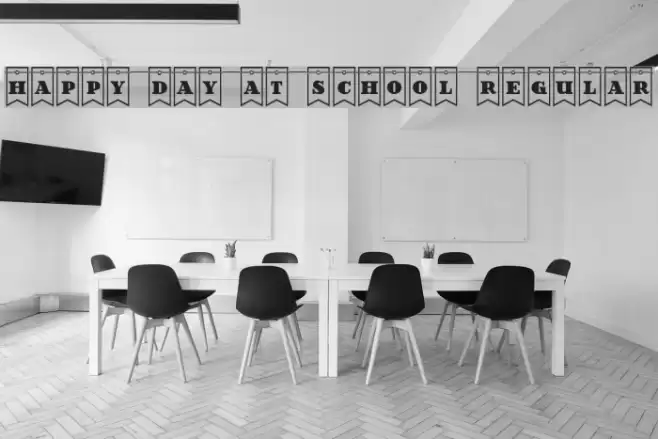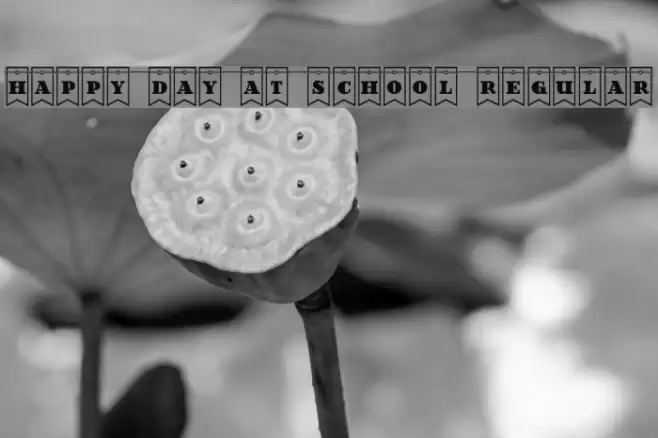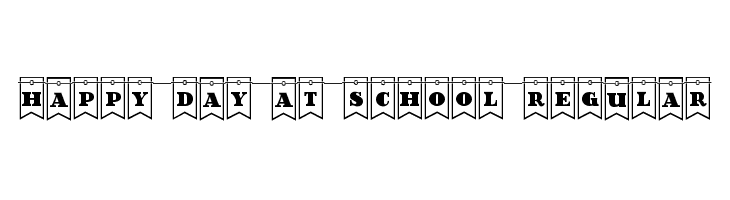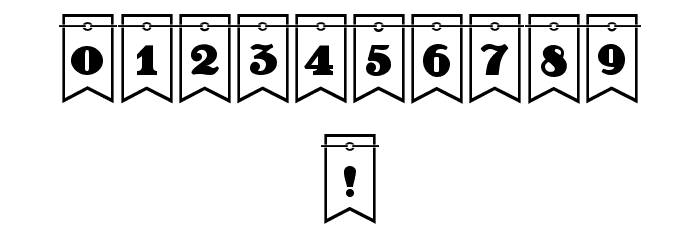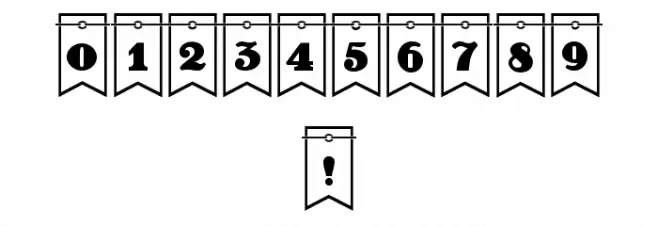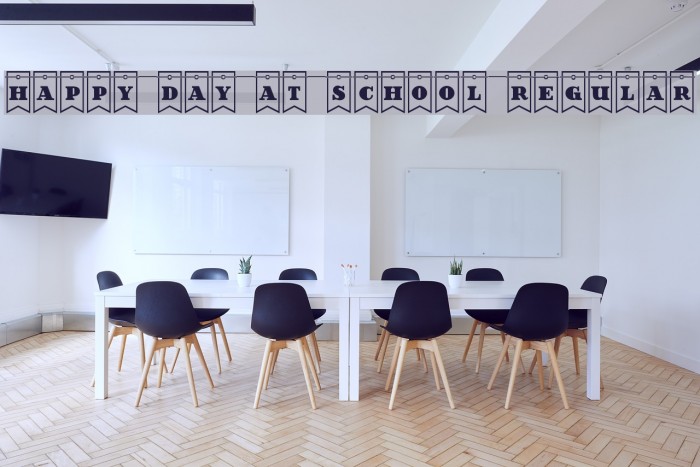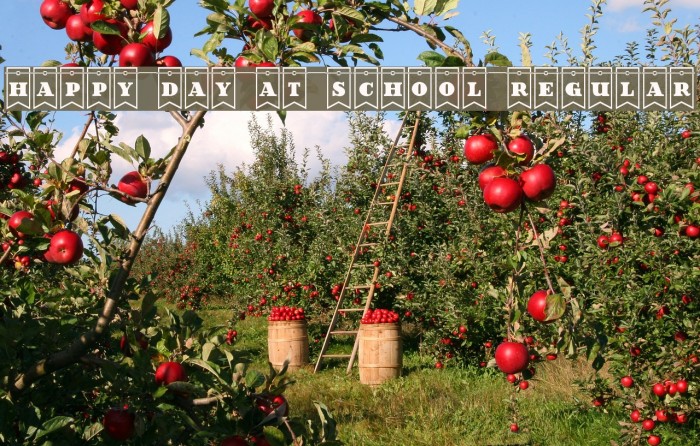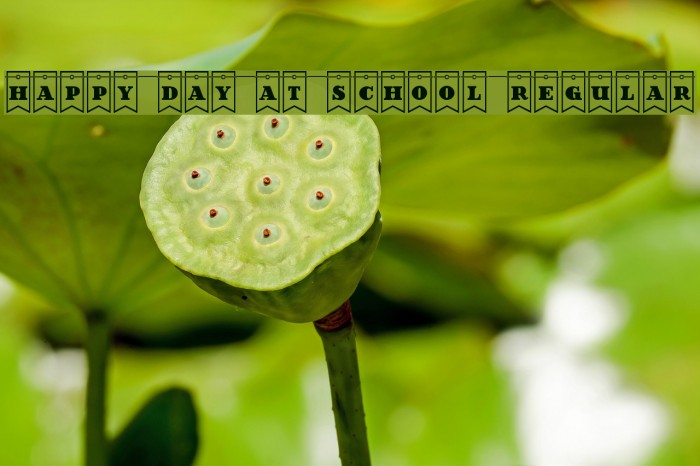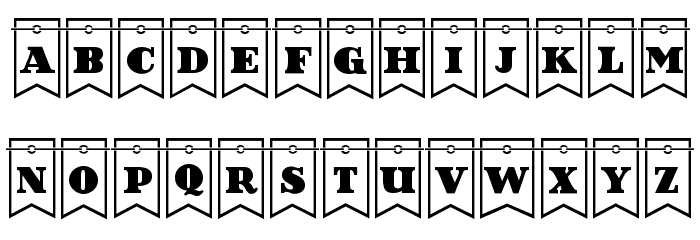
Happy Day at School Regular Font
Happy Day at School Regular Description
This font features bold, uppercase letters displayed on individual banner-like backgrounds, giving it a festive and celebratory appearance. Each character is enclosed in a rectangular shape with a pointed bottom, resembling a flag or pennant. The letters are bold and have a classic serif style, which adds a touch of tradition and formality. The numbers and special characters follow the same design, maintaining consistency throughout the set. The overall look is playful yet structured, making it suitable for occasions that require a blend of fun and elegance.
A bold, serif font with characters on banner-like backgrounds, perfect for festive occasions from Uncategorized fonts.
- Proposed Projects: Ideal for party invitations, school events, banners, and festive decorations.
- Use Case: Headlines, Logos, Banners